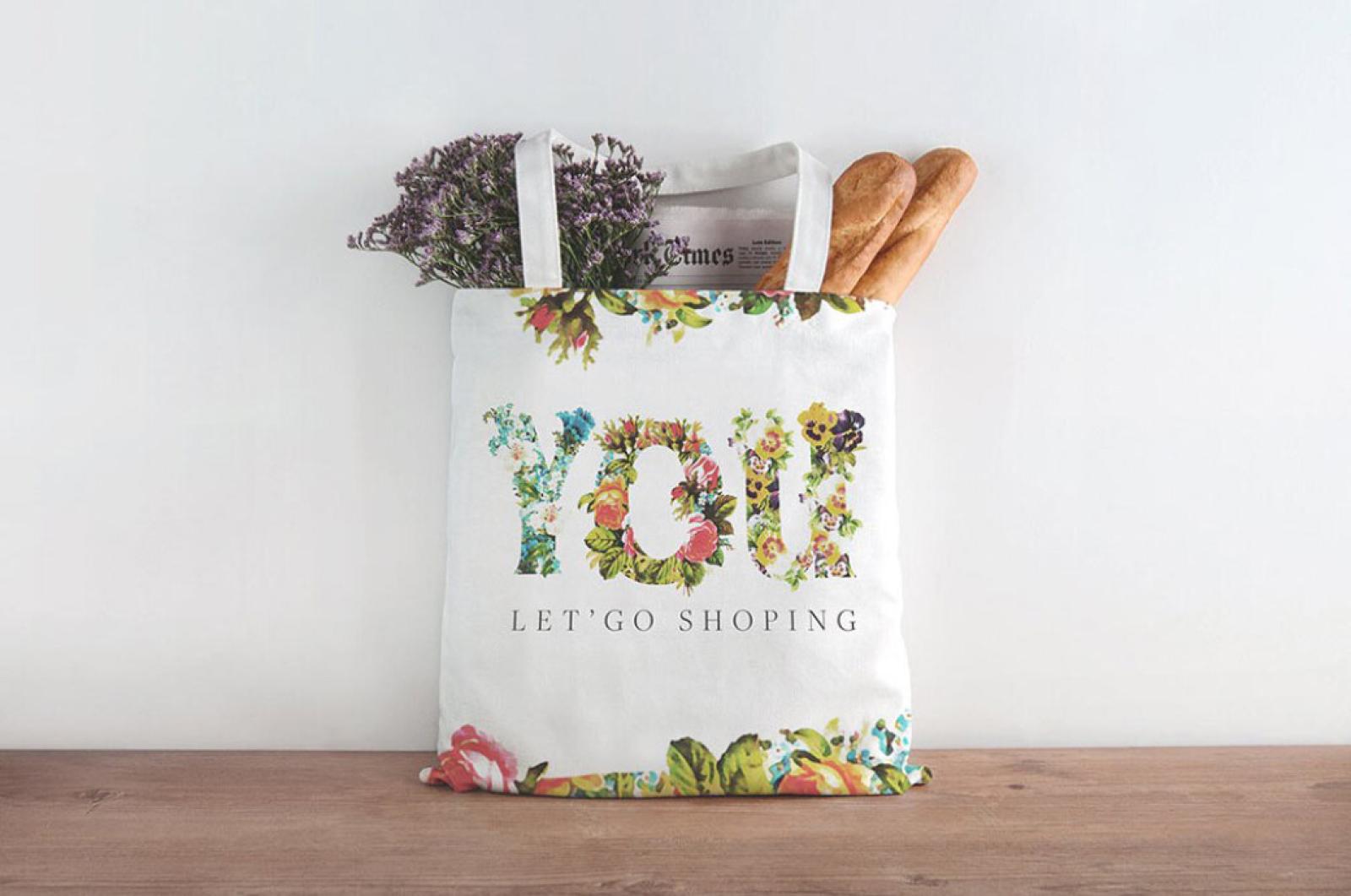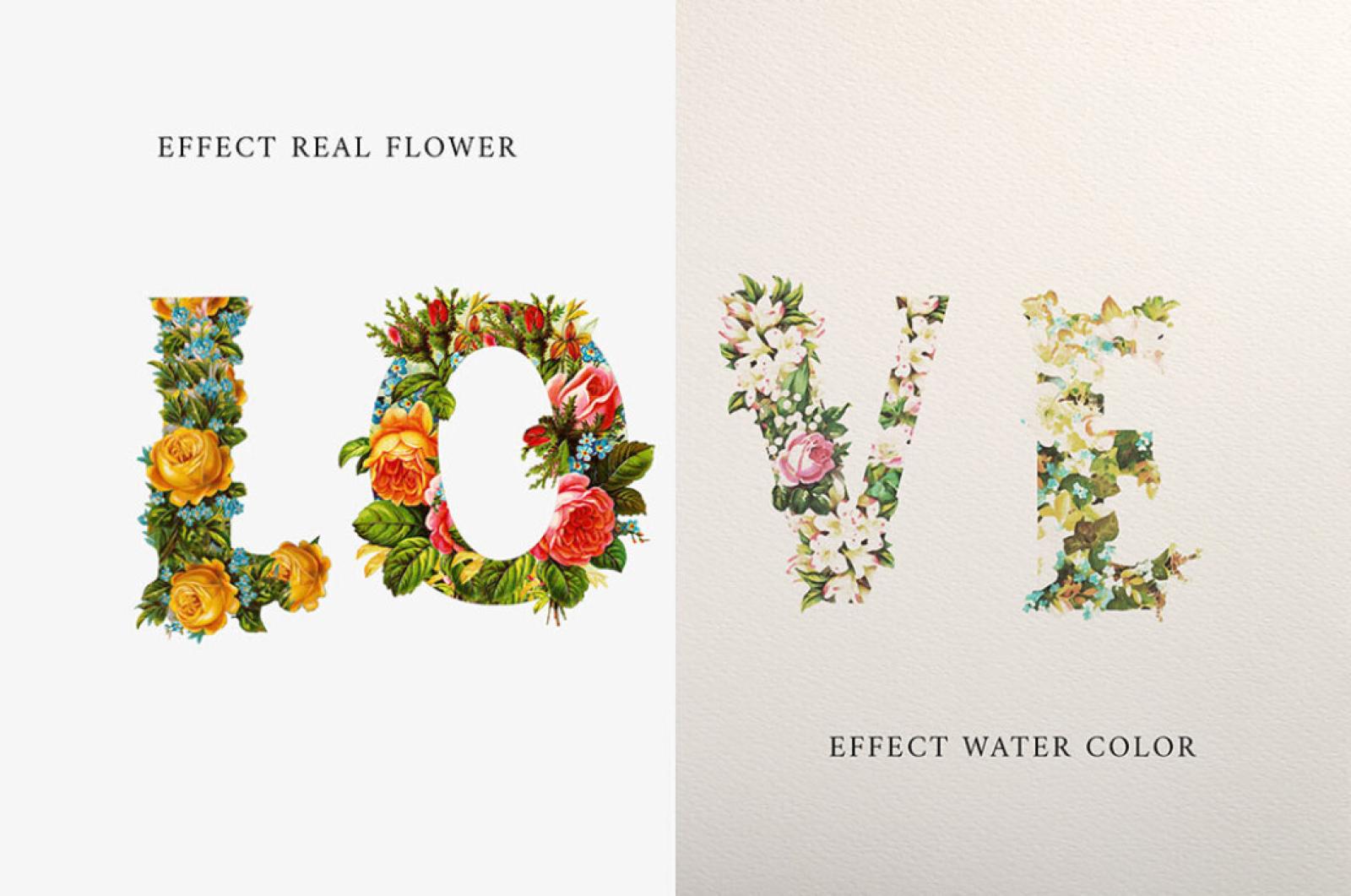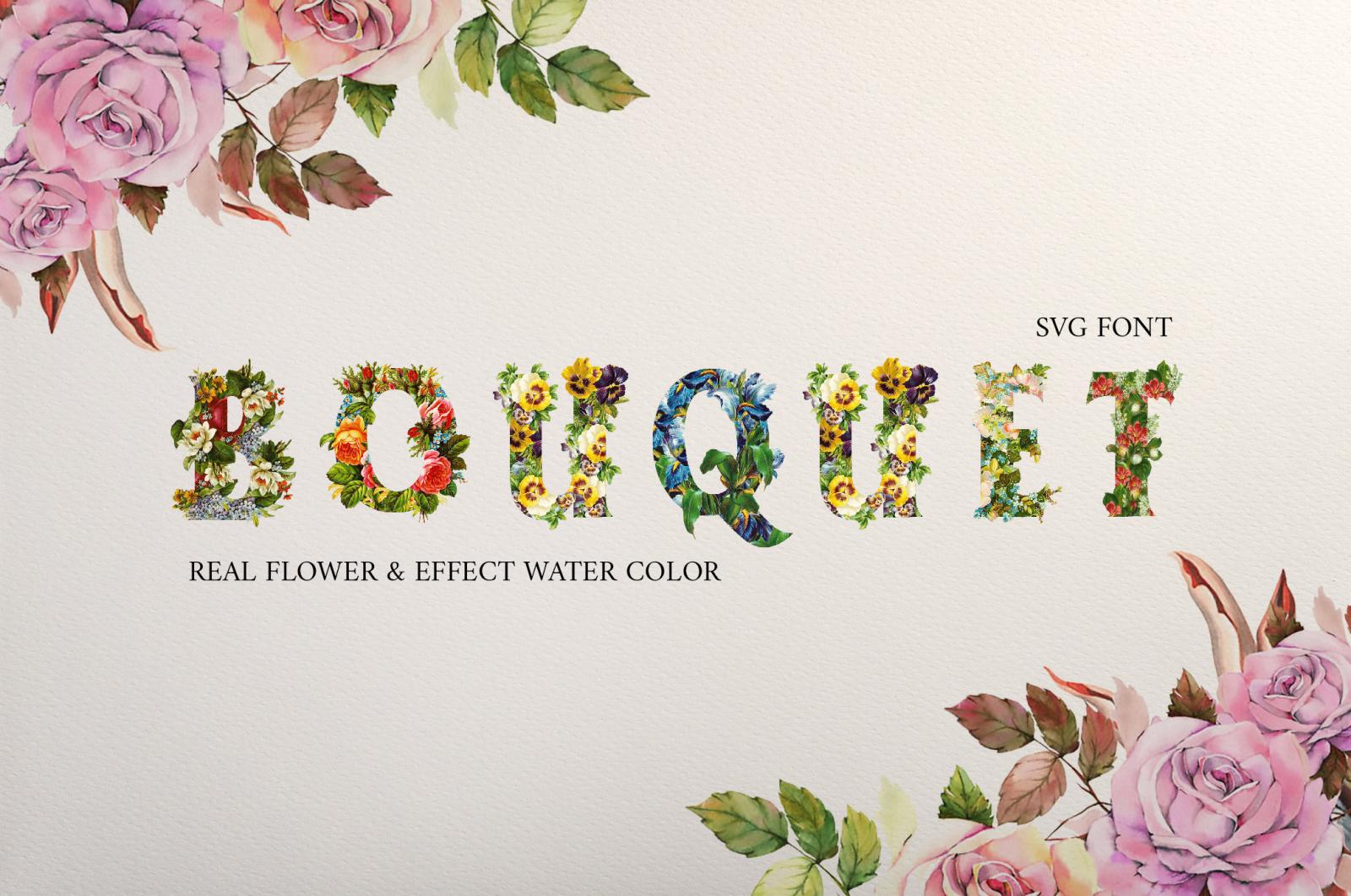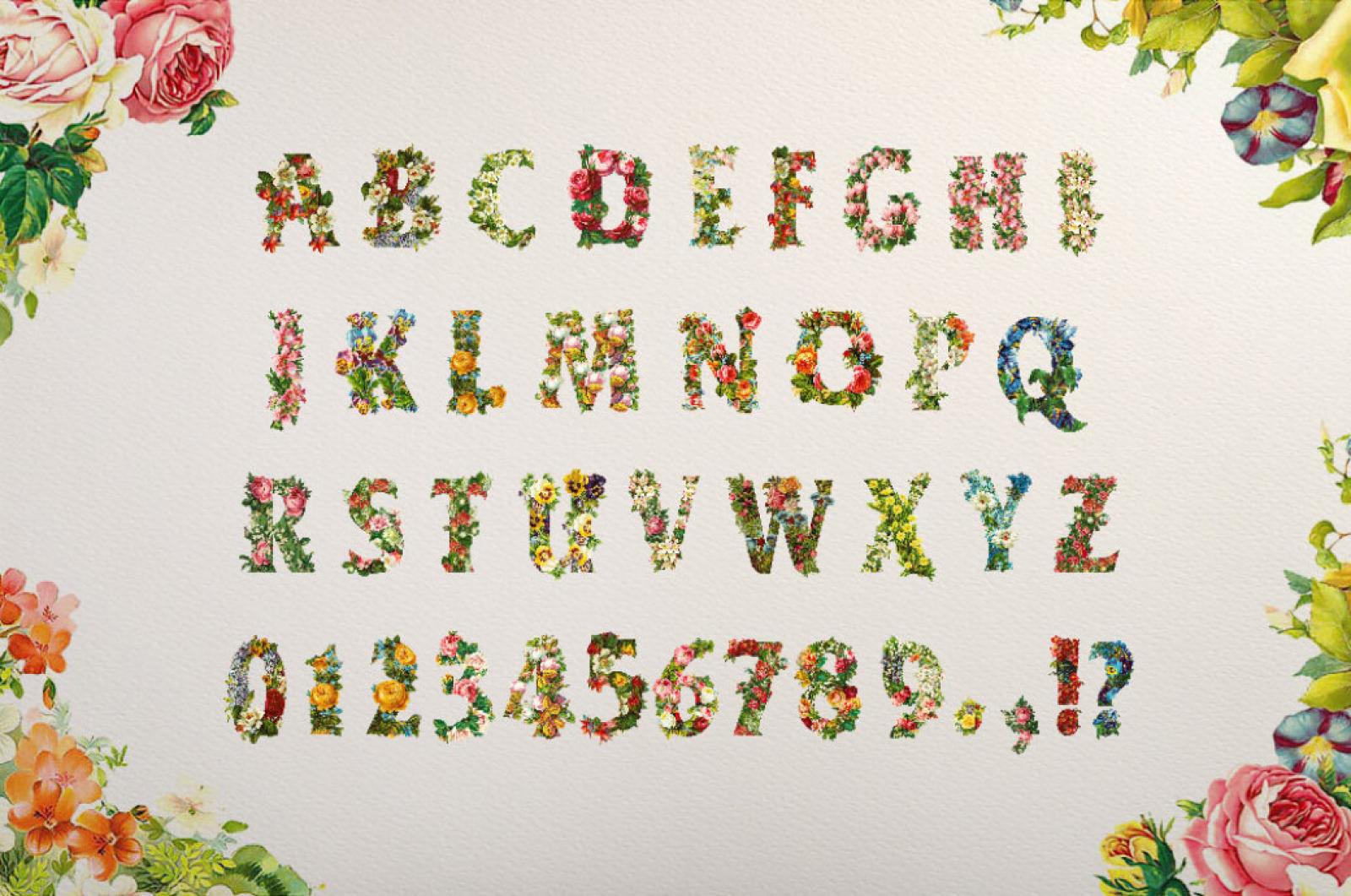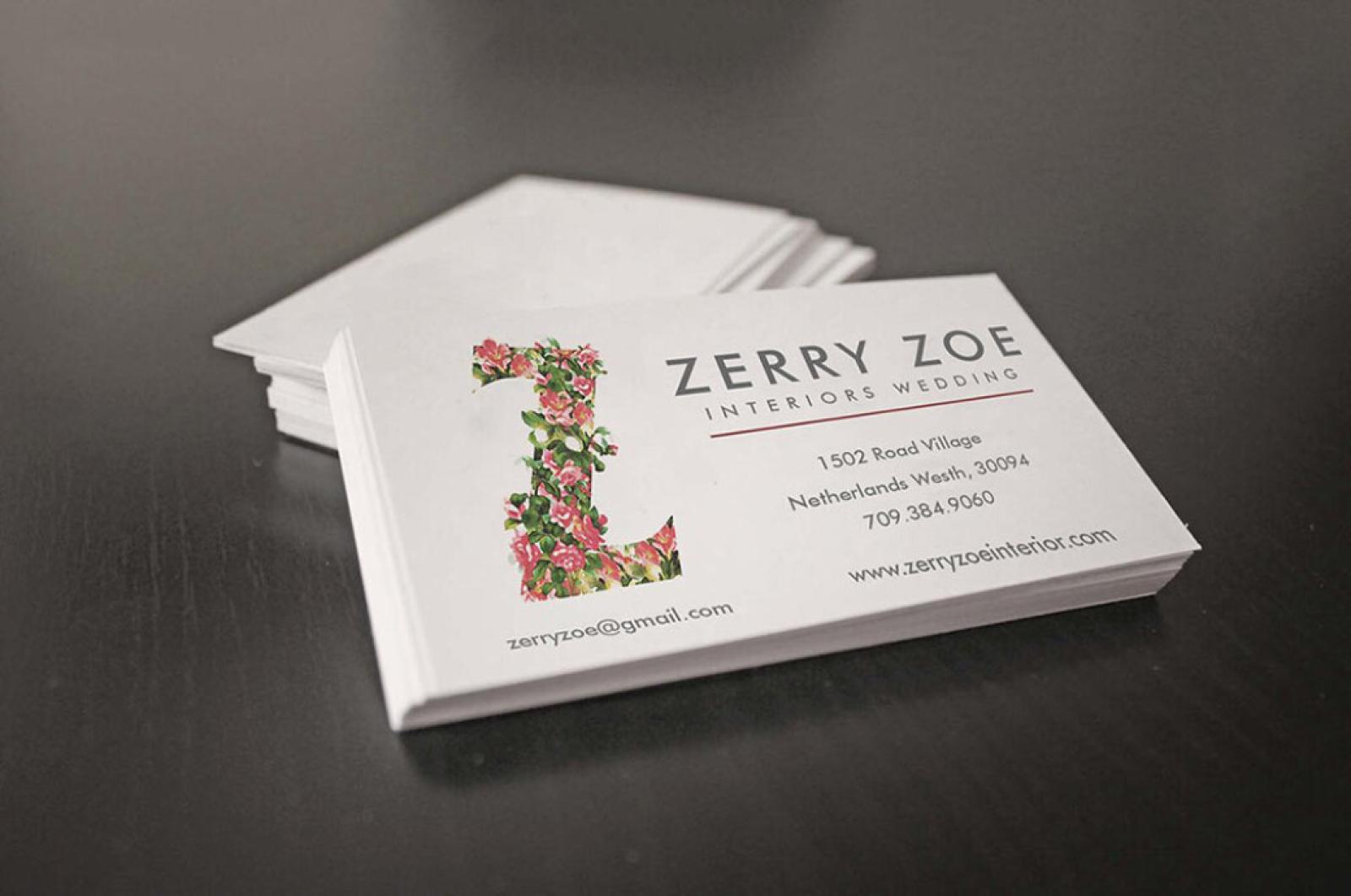
Flower Bouquet SVG Font
Let the flower scent to your artworks and charming tenderness of petals to your typography the point is that we're excited and amazed to present adorable Flower Bouquet SVG from Bloom XXVI.
Flower Bouquet is crafted in two versions: classic floral and watercolor to bring you closer to the desired result. Each version is an ode to genuine beauty and can be used for all sorts of projects you wish to attract maximum attention: posters, elegant branding, websites, wedding invitations, apparel design, packaging and so much more. Match Flower Bouquet with laconic serif typefaces and pastel colors, and no one will resist the floral magnetism of the project, we swear!